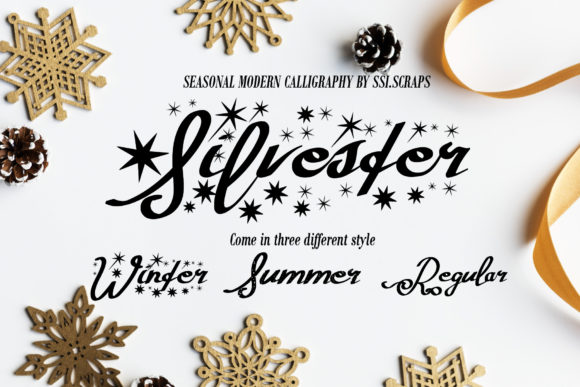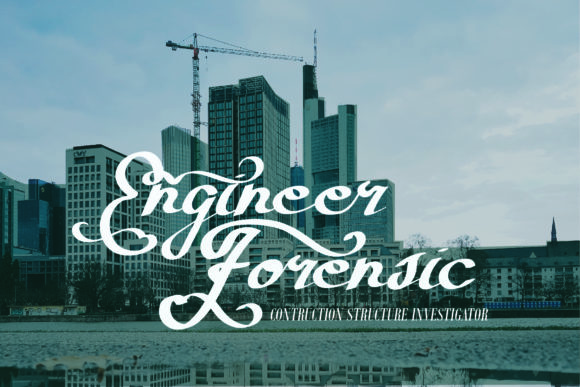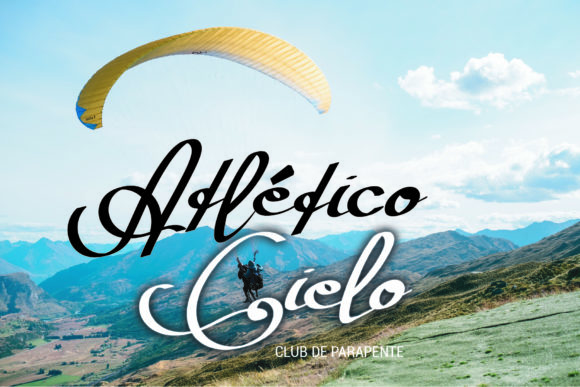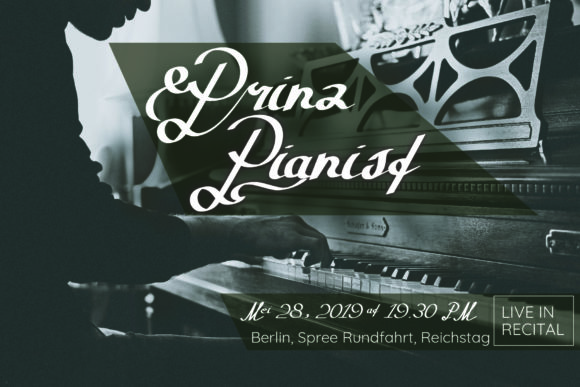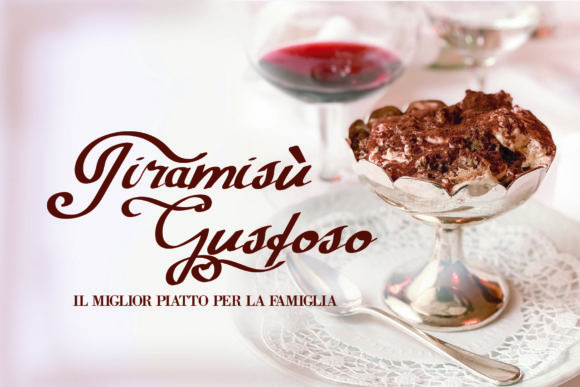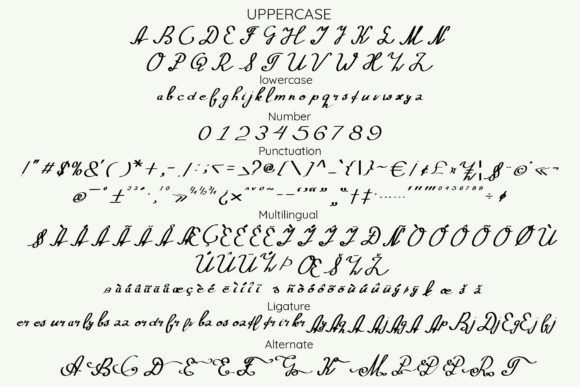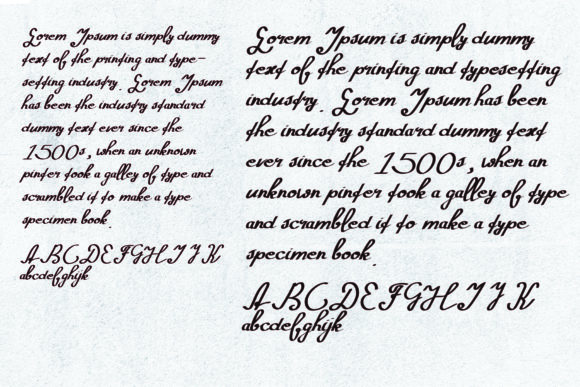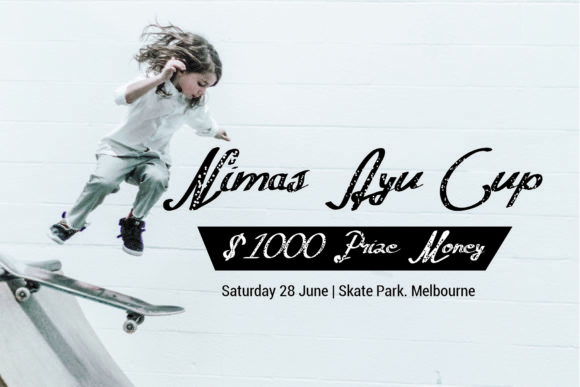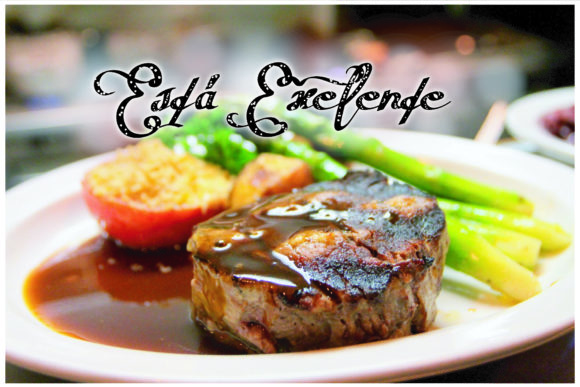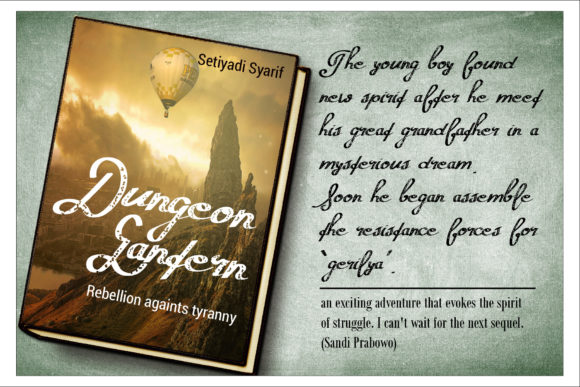
Silvester Font
About Silvester Font
The Silvester is a modern calligraphy family. It comes in a holiday style, grunge style, and a regular style, which makes it the perfect addition to your font library.